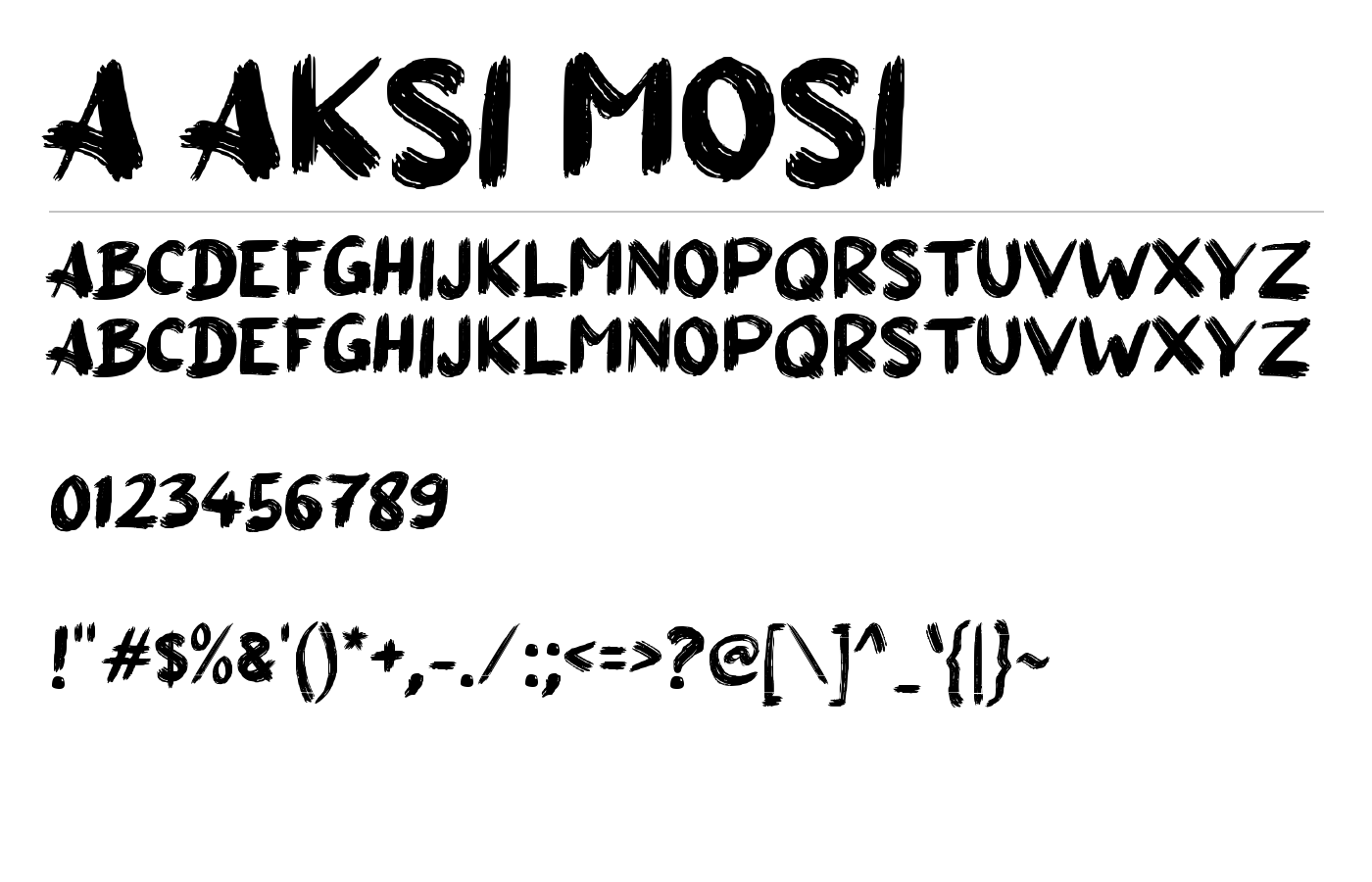
Aksi Mosi is a bold, expressive sans-serif font with a hand-painted, brushstroke texture that gives it dynamic energy and a casual, artistic feel. Its rough edges and uneven strokes create a sense of movement and creativity, making it ideal for designs that want to convey personality and spontaneity, such as posters, logos, and creative branding. This font works well where a strong, informal statement is needed to catch the eye and add a handcrafted touch.
a Aksi Mosi Font
About a Aksi Mosi Font